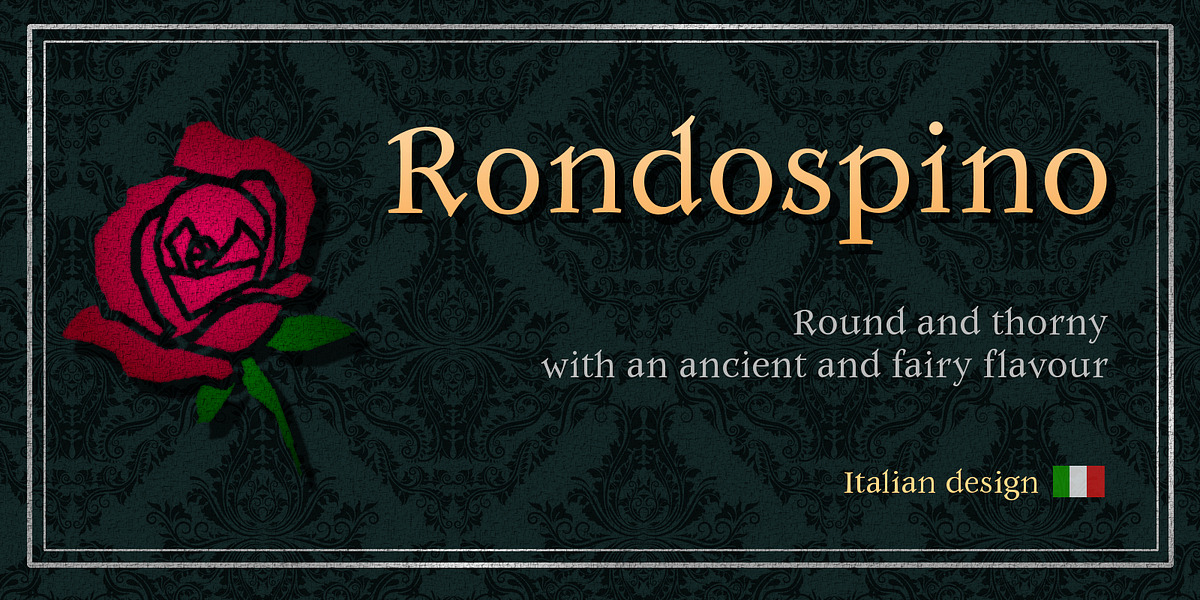
Rondospino
This font features a unique blend of vintage and fantasy aesthetics. The rounded bowls create a sense of playfulness and approachability, while the angled serifs add a touch of mystery and intrigue. Its design makes it well-suited for captivating young readers with imaginative tales or crafting branding that evokes a sense of wonder.